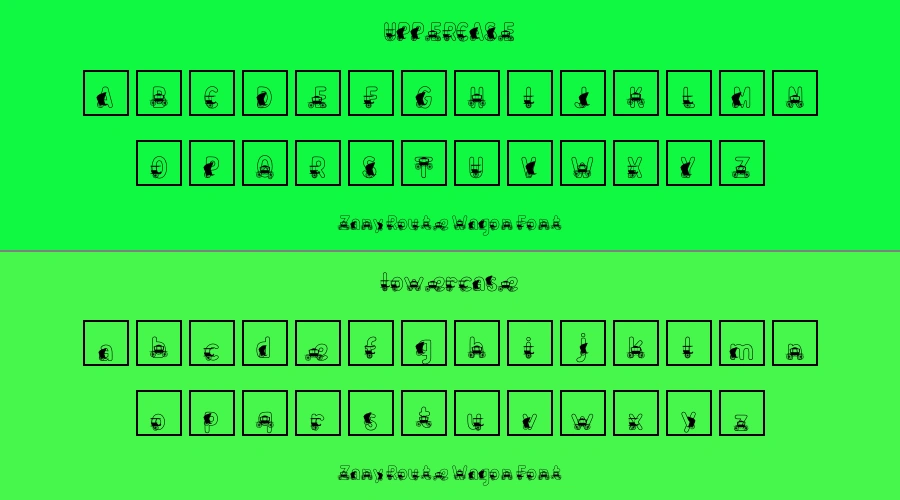
About Zany Route Wagon Font
Designed with precision, Zany Route Wagon Font merges humanist proportions with excellent legibility in every character. This versatility makes it particularly effective for technical manuals, where adaptability and creative impact directly impact communication quality. Each letterform demonstrates meticulous craftsmanship.
Technical excellence shines through elements like confident strokes and pi characters, enhancing typographic versatility. In ceremonial texts settings, Zany Route Wagon Font proves its worth through superior small cap rendering. The thoughtful execution of terminal style and market positioning ensures professional results.